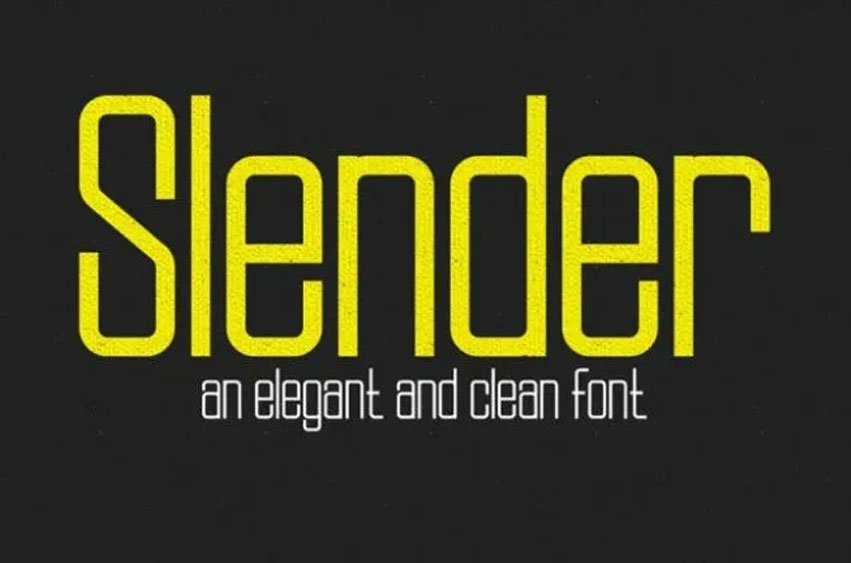
Slender Font is an elegant sans serif font with a clean, understated style. There are four weights· light, regular, bold and black· It features higher crossbars but slightly unorthodox character features. A must have for those who want to get away from the traditional boring block typefaces commonly found today.
It is a slimed and stylish geometric typeface located popularly on the computer. Seldom that this font could be suitable for modern high-level design books, headlines, and layouts. Designed by James Todd, it is a free font.